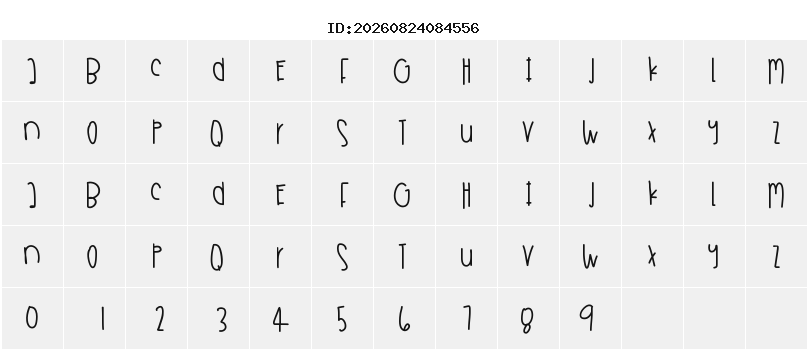
SandyShoreShells Preview
• Font Name: SandyShoreShells
• Font ID: Des:SandyShoreShells
• Full Font Name: SandyShoreShells
• PostScript Name: SandyShoreShells
About SandyShoreShells.ttf
SandyShoreShells.ttf is a modern, elegant sans-serif font designed for ultimate readability and visual harmony. Perfect for branding, headlines, web design, and print materials.